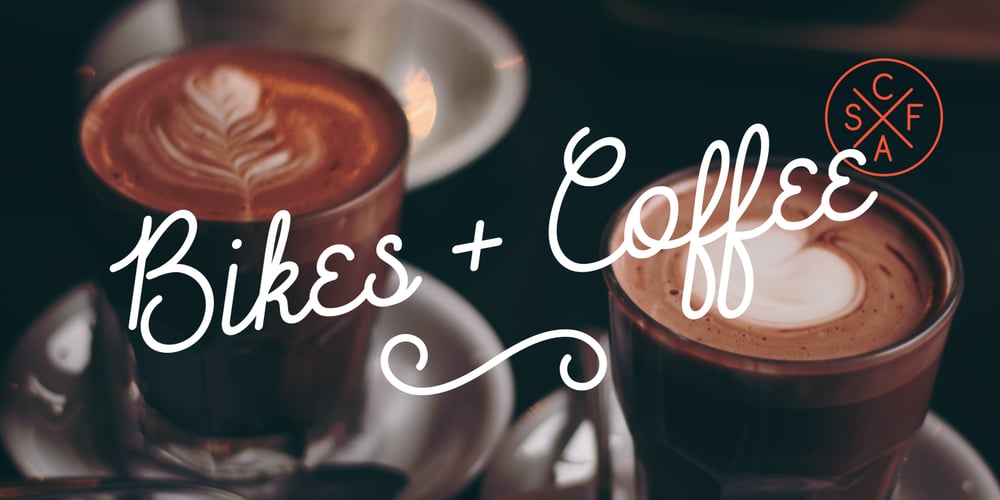
Sparkle Script Font Family was designed by published by Ryan Keightley. Sparkle Script contains 2 styles and family package options. Sparkle is an expressive yet legible monoline font, benefiting from OpenType with nearly 800 glyphs for alternate letterforms, smooth ligatures, complimentary sans-serif small caps, accents, and a variety of swashes.